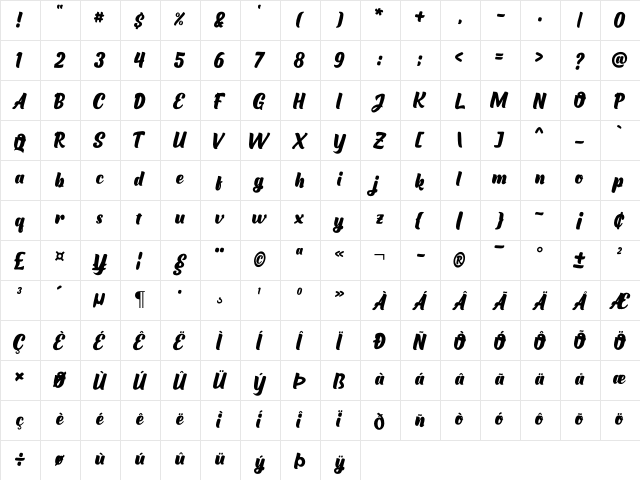
Luckystar Regular
| Designer | Toni Dzulham |
Design Context for Luckystar Typeface
Luckystar is a composed and adaptable typeface that performs quietly and consistently across a wide range of design contexts.